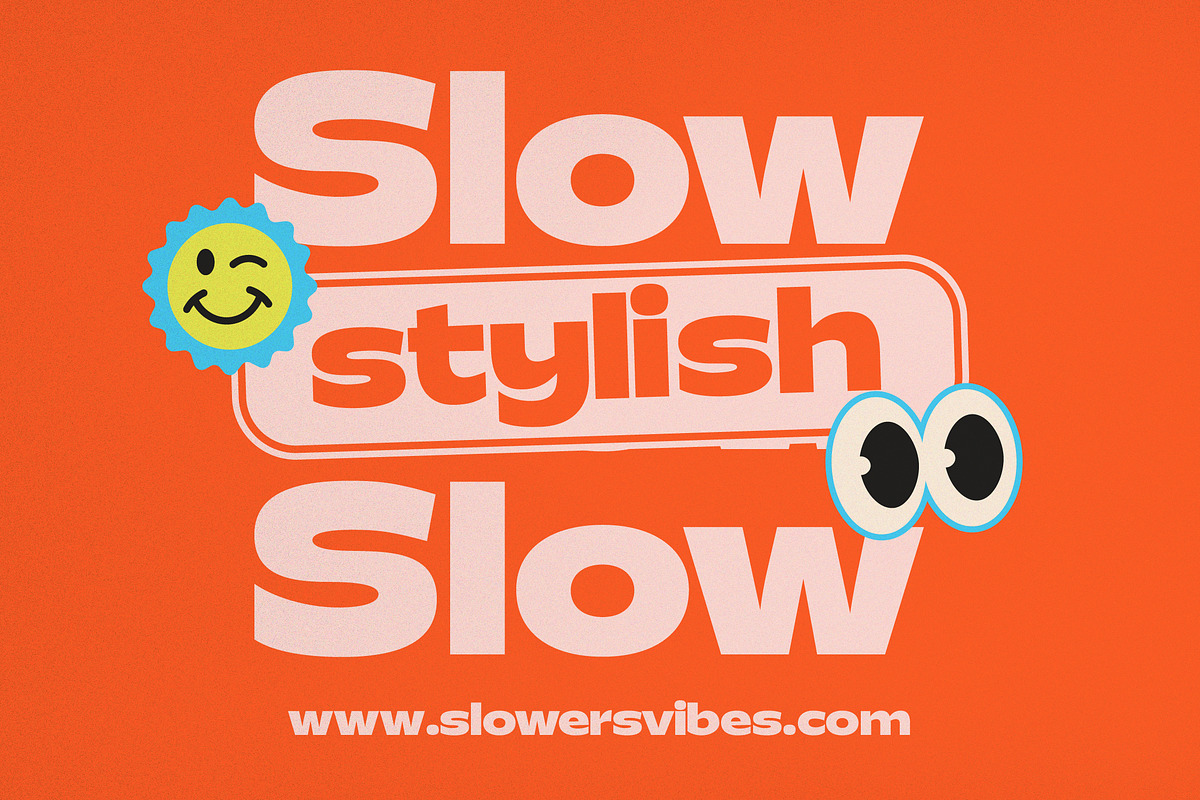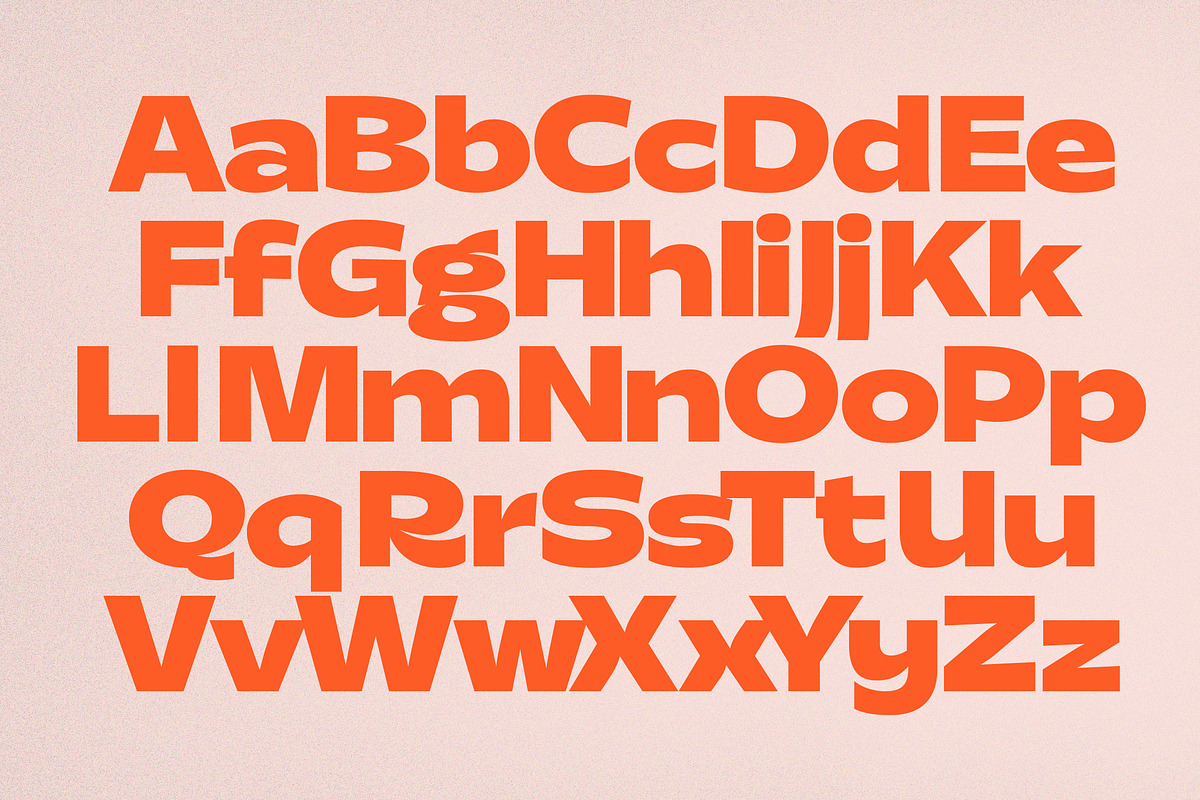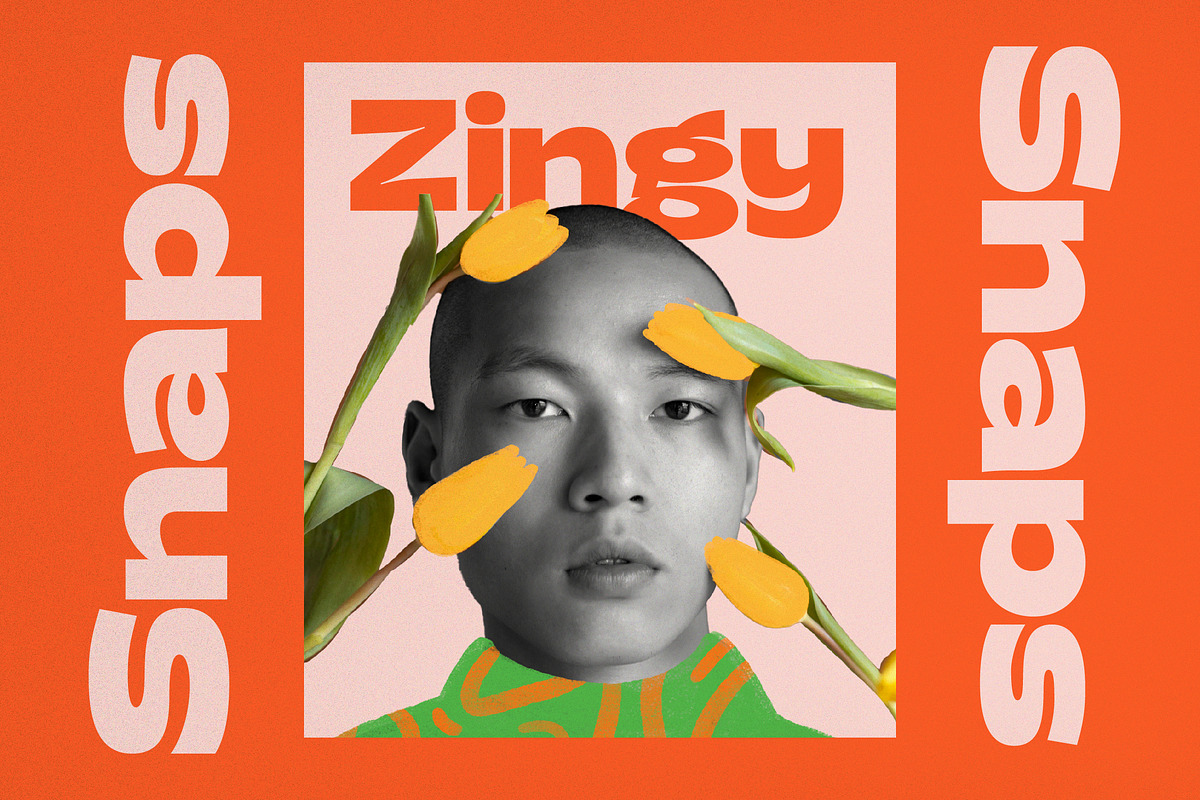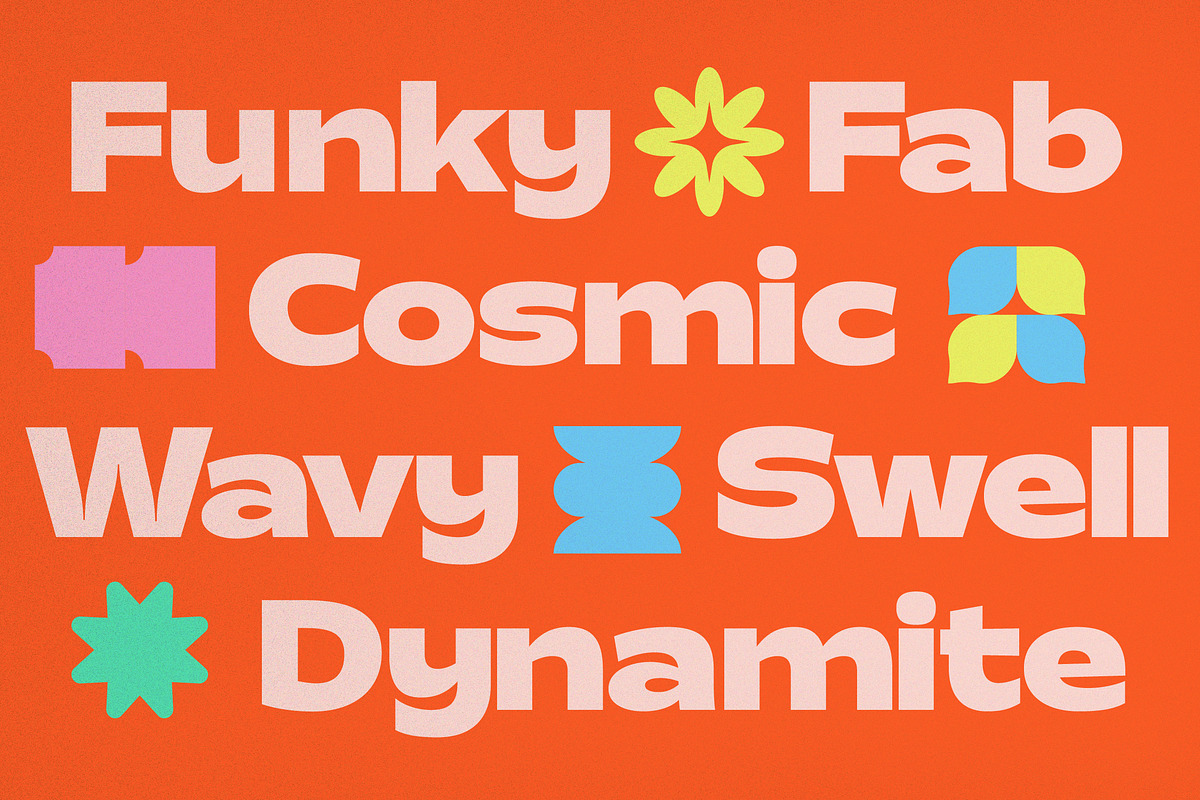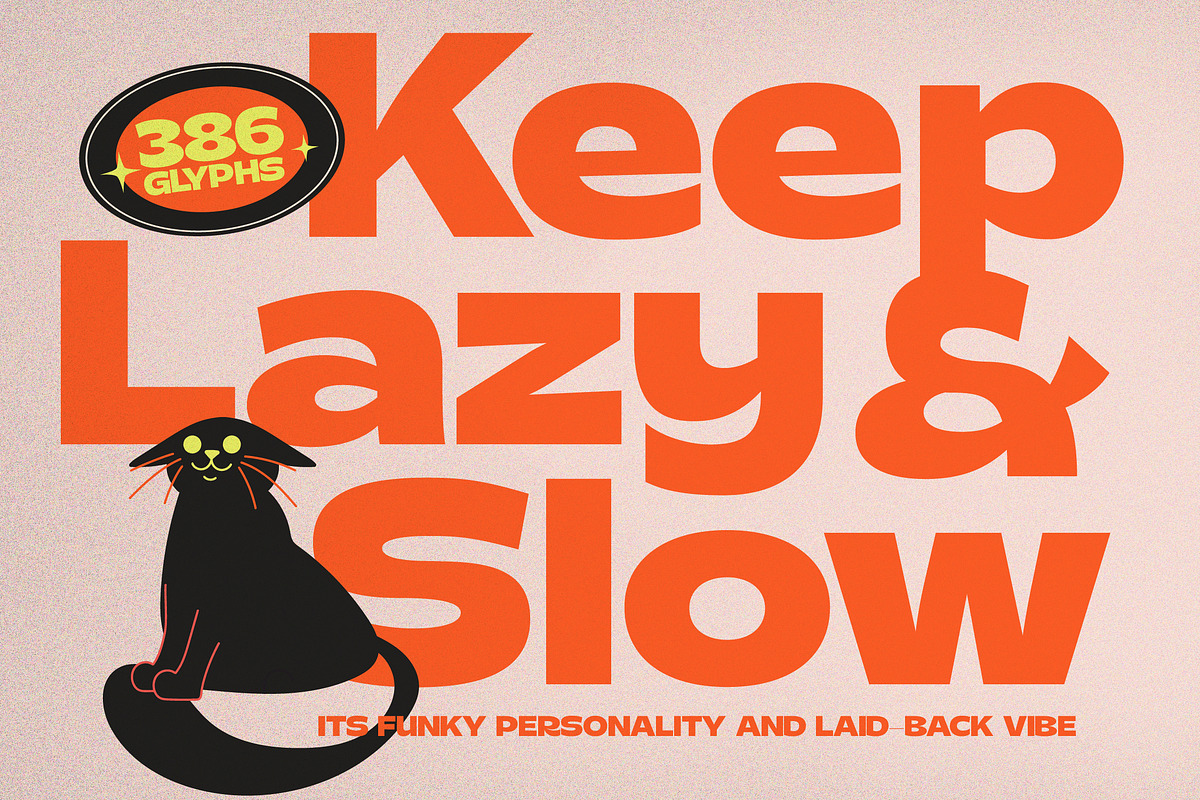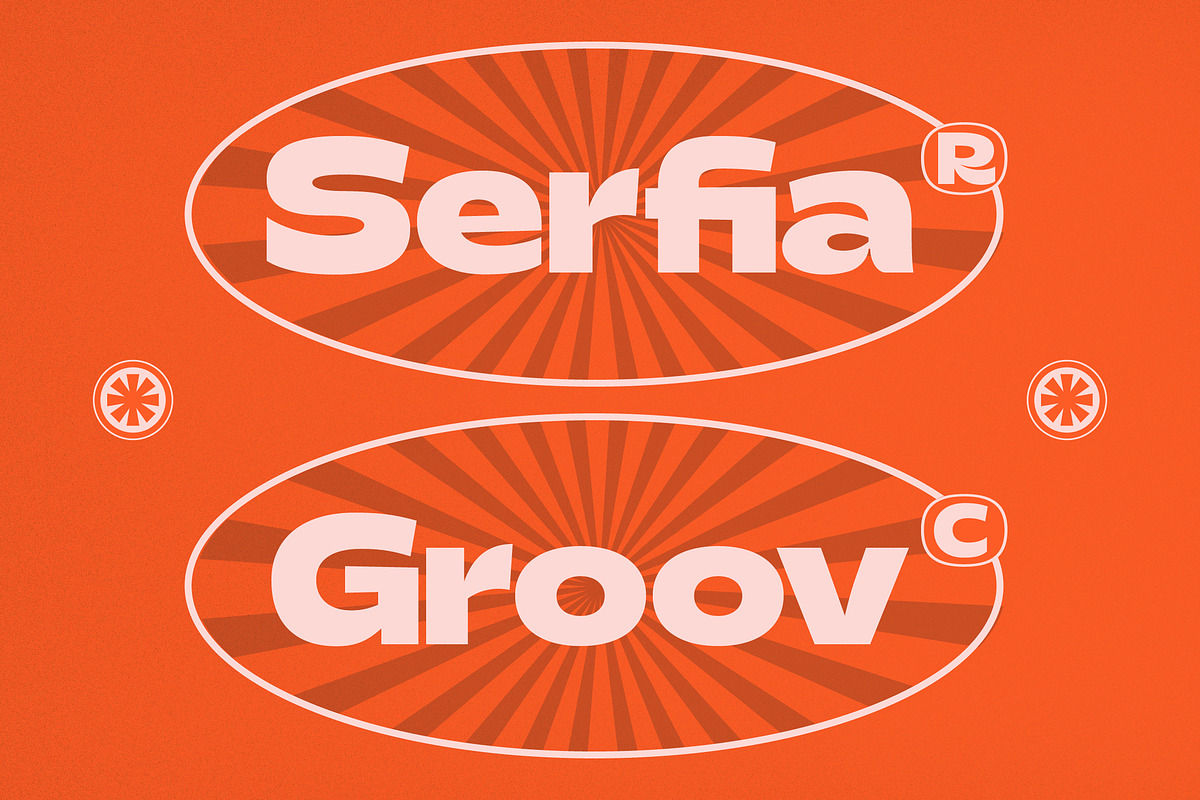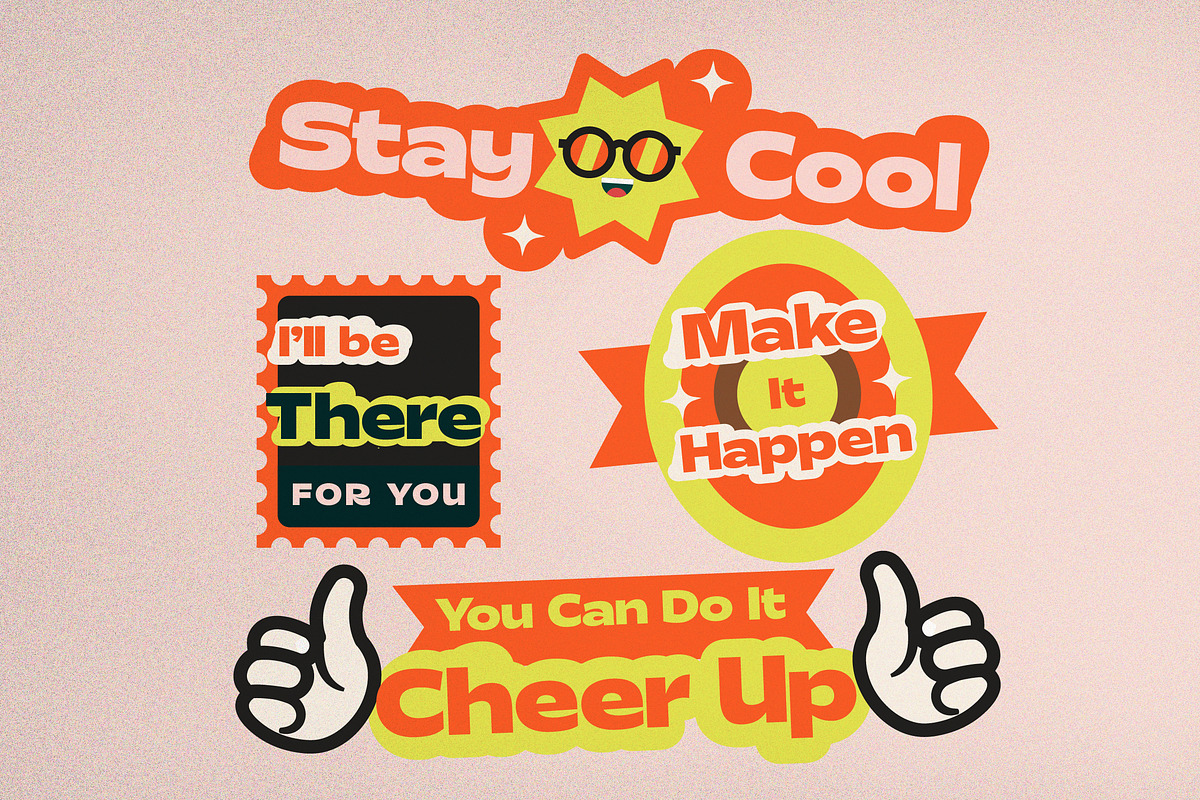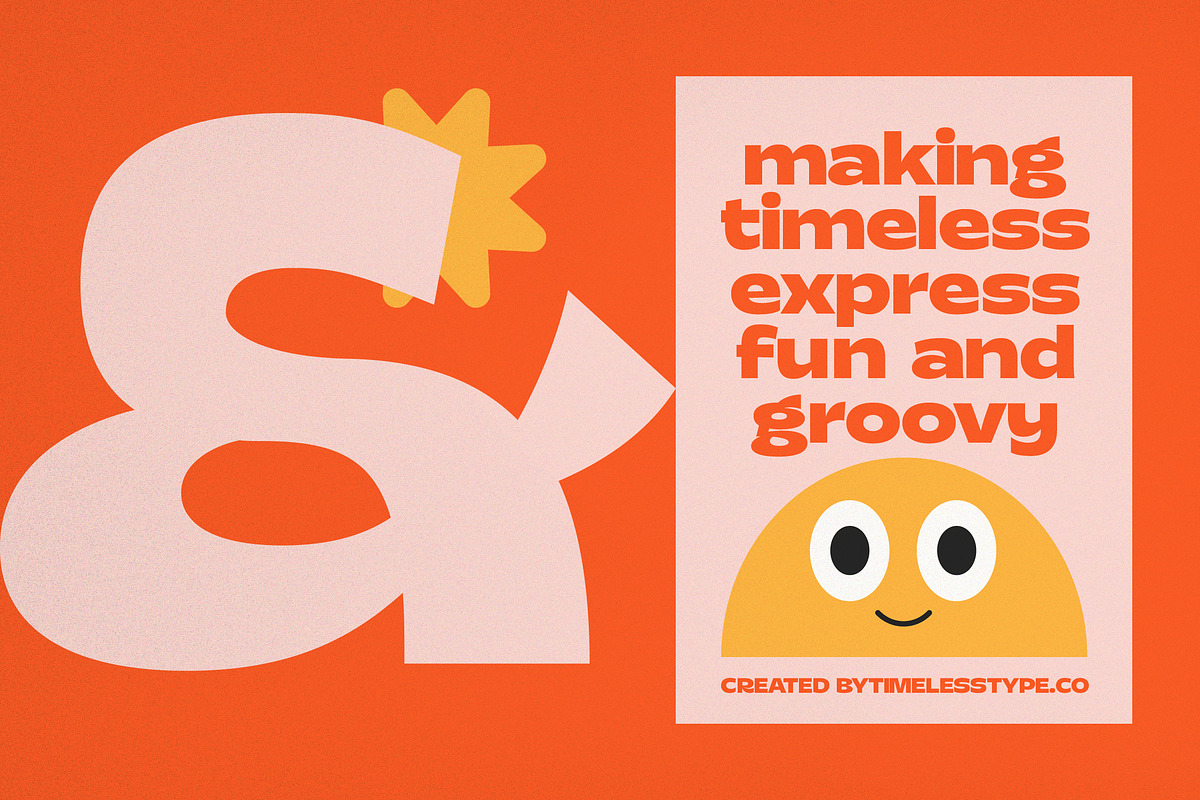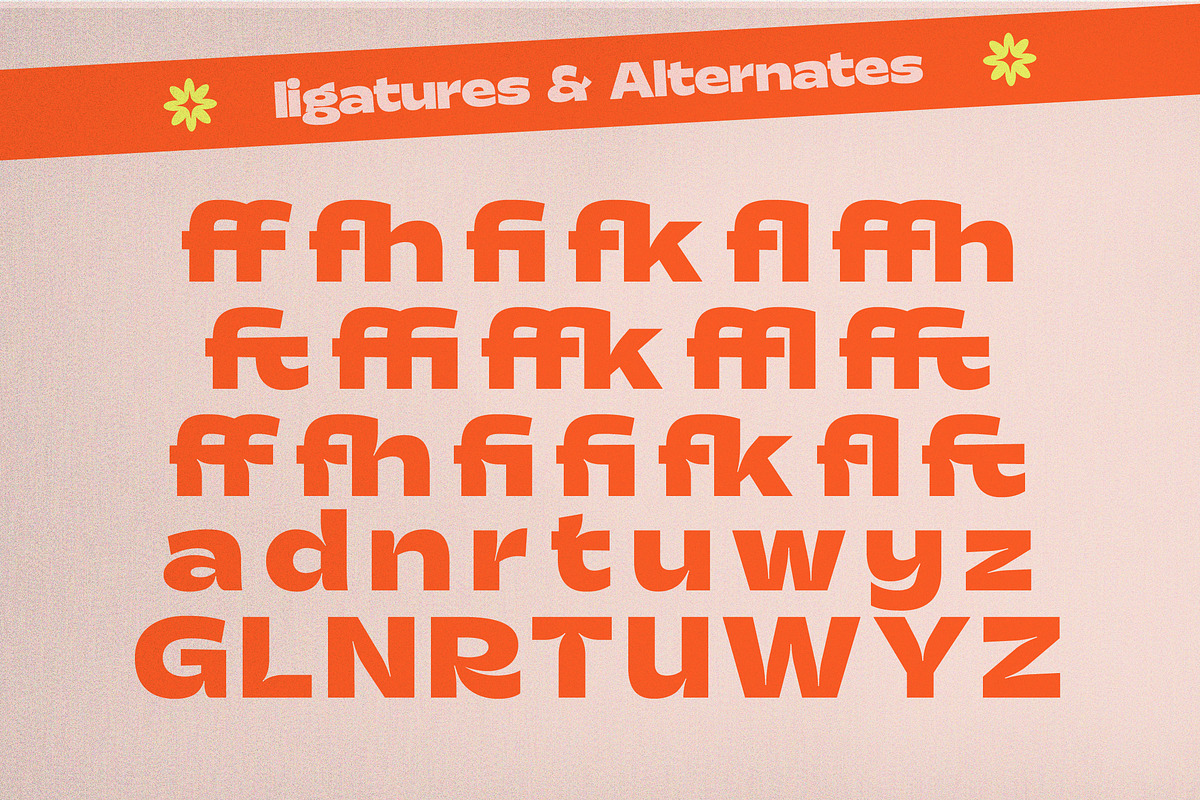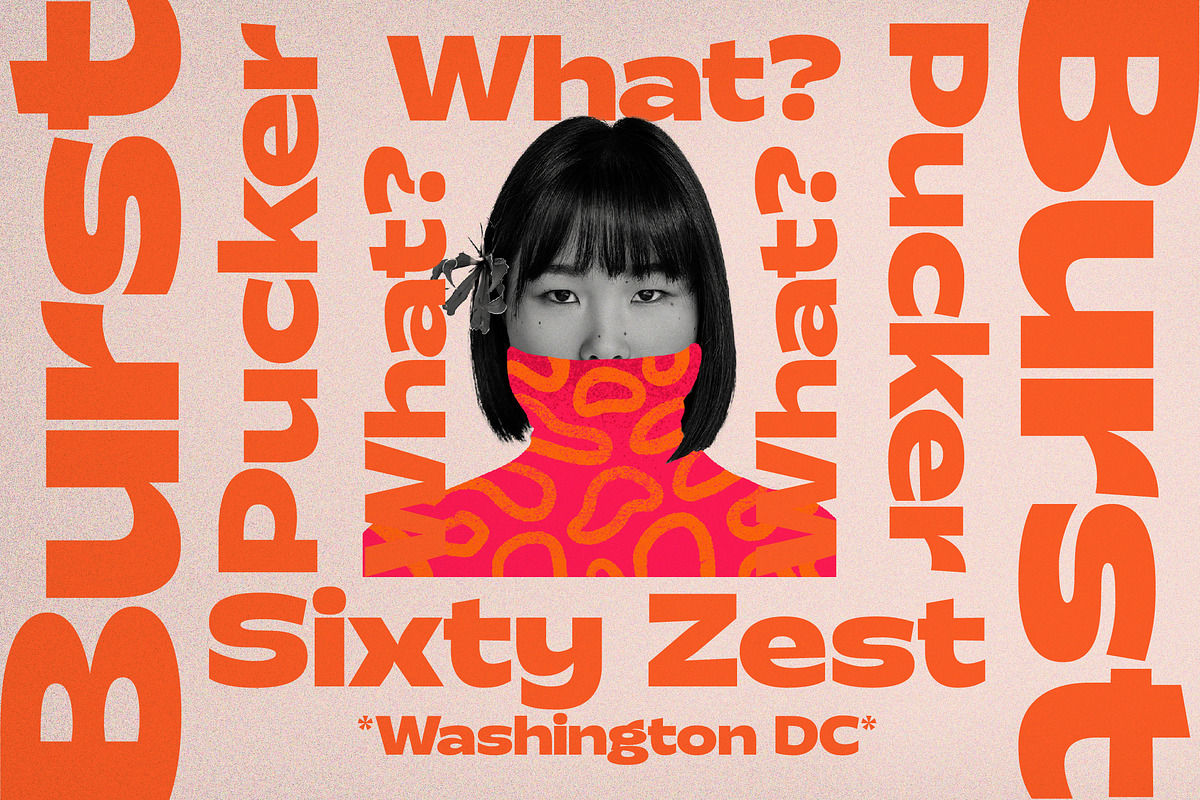
Bugky Groft - Bold Retro Sans
Bugky Groft is a vibrant explosion of personality designed to demand attention and spark joy in every creative layout. This bold sans serif display font transcends traditional boundaries, offering a unique blend of chunky aesthetics and fluid motion that commands the page.
Drawing inspiration from the psychedelic curves of the late 1960s and the structured boldness of modern grotesque type, this face captures a nostalgic yet futuristic energy. It is a visual celebration of quirky geometry and character-driven design that feels both timelessly classic and rebellious.
This typeface delivers an unmistakable branding impact that resonates with the luxury typography market through its heavy weight and eccentric curves. Though it carries the DNA of a sans, it functions with the same elegance as a high-contrast serif, making it a versatile editorial font and a standout modern serif display alternative for designers seeking bold distinction.
Riding the wave of the modern serif trend, this typeface bridges the gap between vintage charm and contemporary edge. It perfectly aligns with the current global demand for editorial display fonts and character-driven typography that breaks away from sterile minimalism in favor of maximalist expression.
From striking logo design to cohesive branding systems, this font excels in high-visibility environments where character is paramount. It is the perfect choice for high-end editorial layouts, vibrant packaging, avant-garde wedding invitations, and high-fashion lookbooks.
The extensive character set includes a wealth of ligatures and alternates to provide endless creative combinations for unique wordmarks. With full multilingual support and international characters, as well as decorative swashes, it ensures global accessibility for any professional design project.
- Ligature 22 Alternate 34